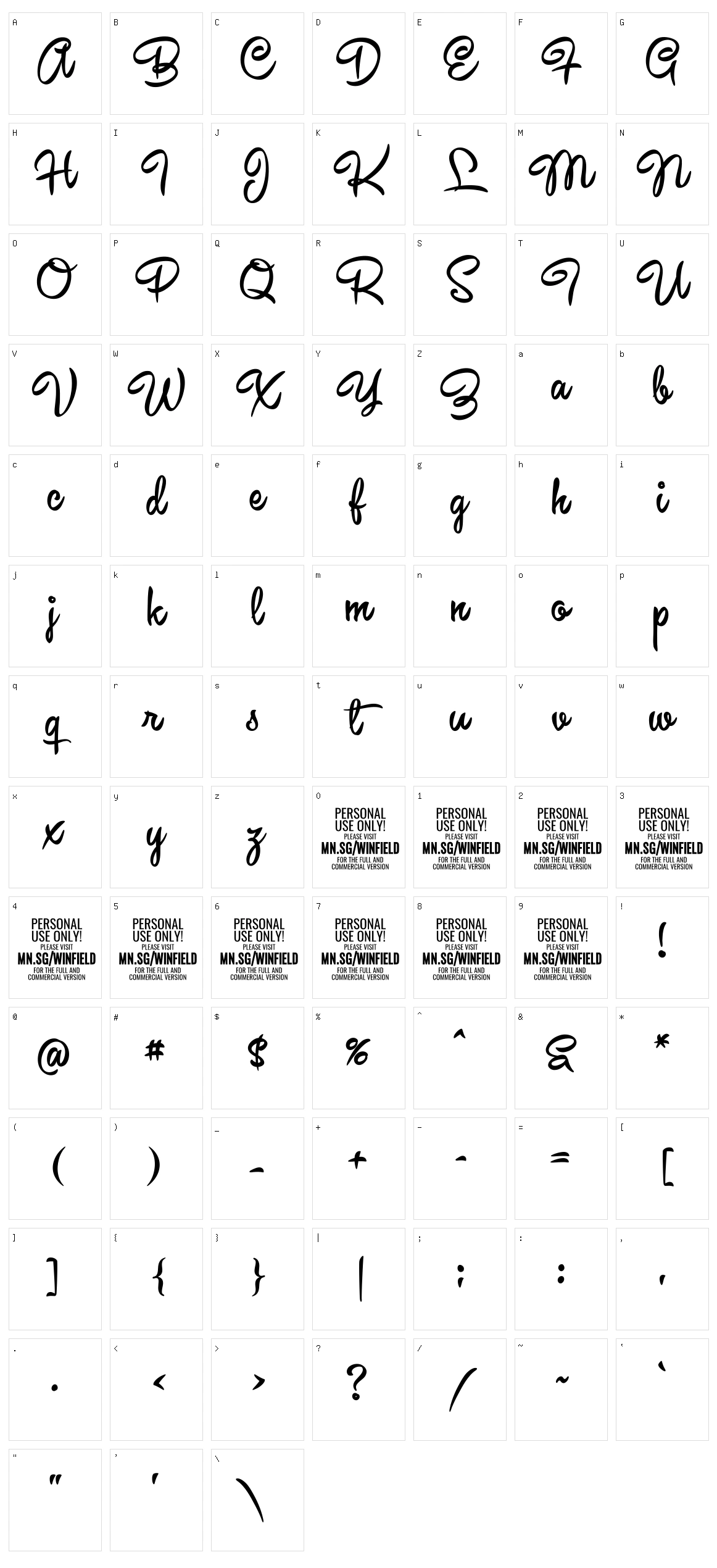
Winfield Script is a classic handwritten typeface.
Insprired by mid-century advertisements and logotypes, this font gives any project a happy vibe.
The typeface was drawn and created by Måns Grebäck in 2019.
It contains a wide range of characters and supports a majority of Latin-based languages.
Winfield Script also contain multiple stylistic alternate letters and ligatures.